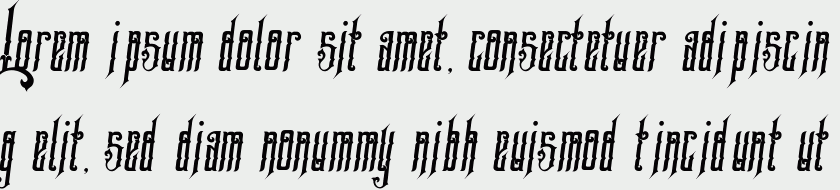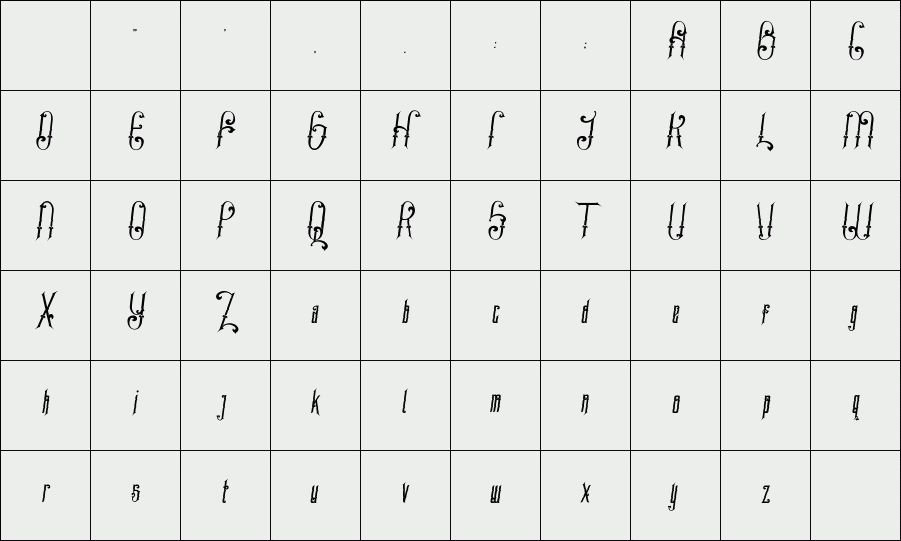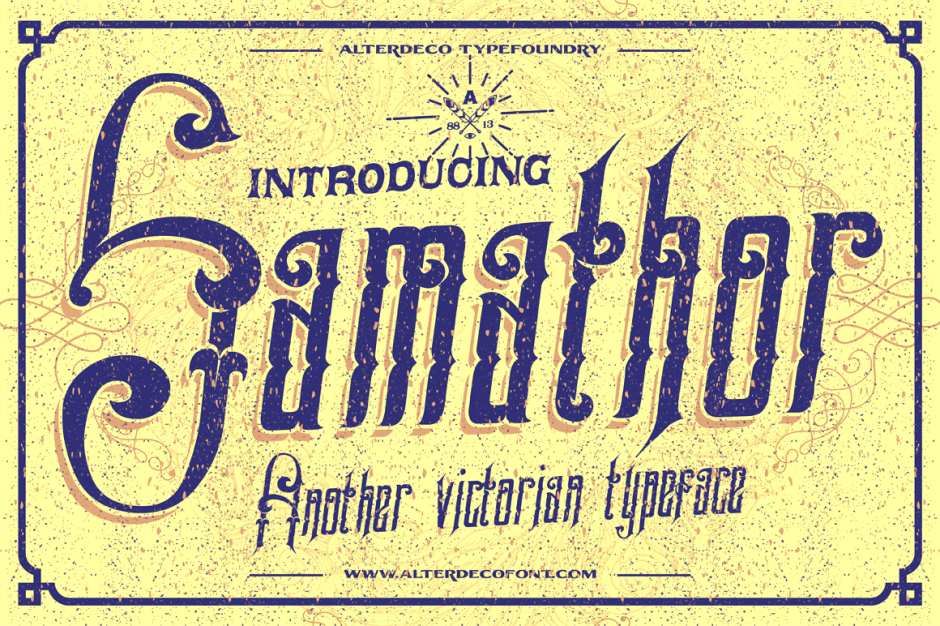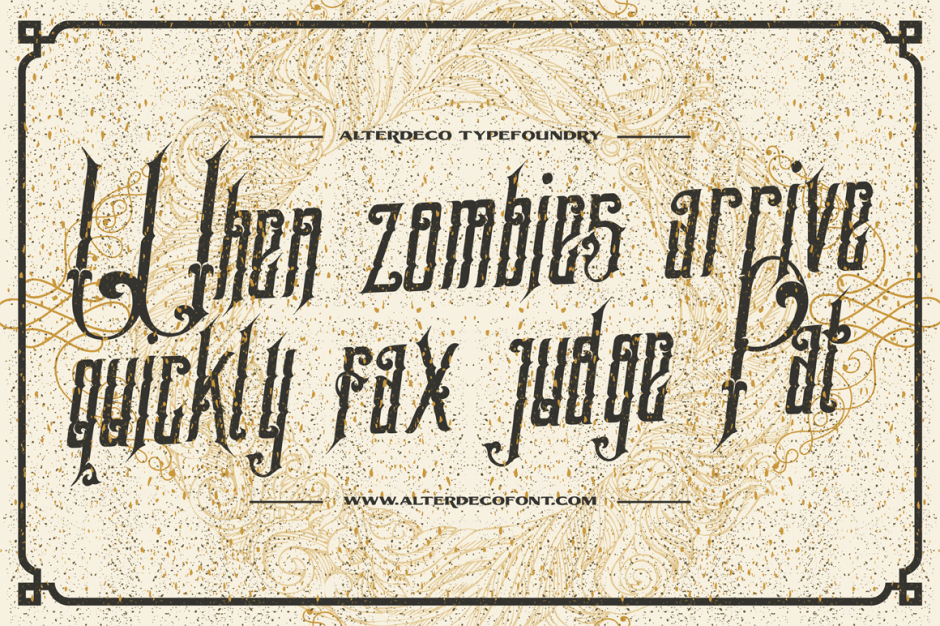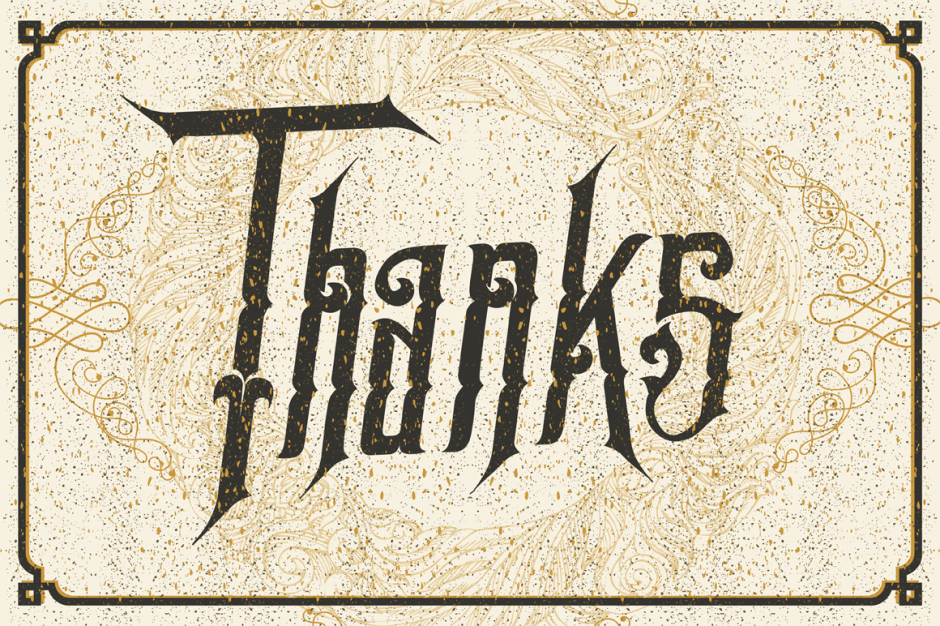
Samathor typeface
Samathor is an old fashioned vintage victorian font, perfect for your vintage designs, logos, word arts, and other timeless designs. available in ttf (windows) and otf (mac) - www.alterdecofont.com